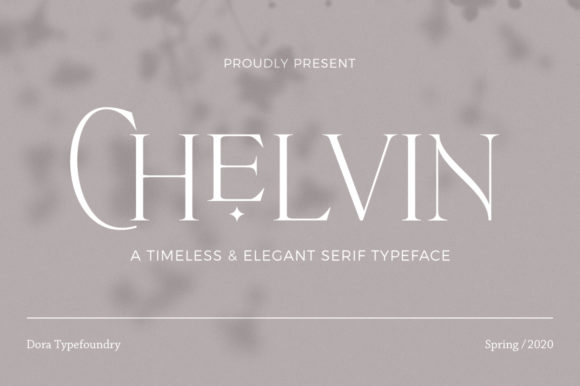
In a world where visual aesthetics reign supreme, your wedding card holds the power to make an unforgettable first impression. Picture this: as your guests eagerly open the envelope, they're greeted by an exquisite masterpiece adorned with Chelvin Font - a serif font poised to transform their hearts into enchanted realms.
Let the graceful curves of Chelvin Font enchant you with its timeless elegance. This meticulous creation by doratypefoundry captures the essence of sophistication and grace, making it the perfect dance partner for your wedding invitations. Elevate your love story with the understated beauty of Chelvin, effortlessly setting the tone for a day etched in everlasting memories.
With Chelvin Font as your narrative weaver, you'll have the power to craft a visual spectacle that speaks to your love's unspoken depths. Its precisely crafted characters exude a charm that will captivate your guests, leaving them spellbound from the very first glance. Prepare to witness your love story bloom into a visual masterpiece, one that resonates with profound emotions and paints a picture of eternal devotion.
Step into a world where love and elegance intertwine, where Chelvin Font dances across your wedding card with the grace of a ballerina. Let its delicate strokes intertwine with the tales of your love's journey, creating a tapestry of emotions that will leave your guests utterly captivated. Embrace the timeless allure of Chelvin Font and watch as it weaves a symphony of love, joy, and enchantment that will forever be cherished.
Unleash the creative force within you and let Chelvin Font ignite your imagination. Its versatility extends beyond wedding cards, offering a boundless realm of possibilities. Whether it's branding projects, personal invitations, or captivating social media graphics, Chelvin Font effortlessly adapts to your creative vision, adding a touch of elegance and sophistication that leaves a lasting impression.